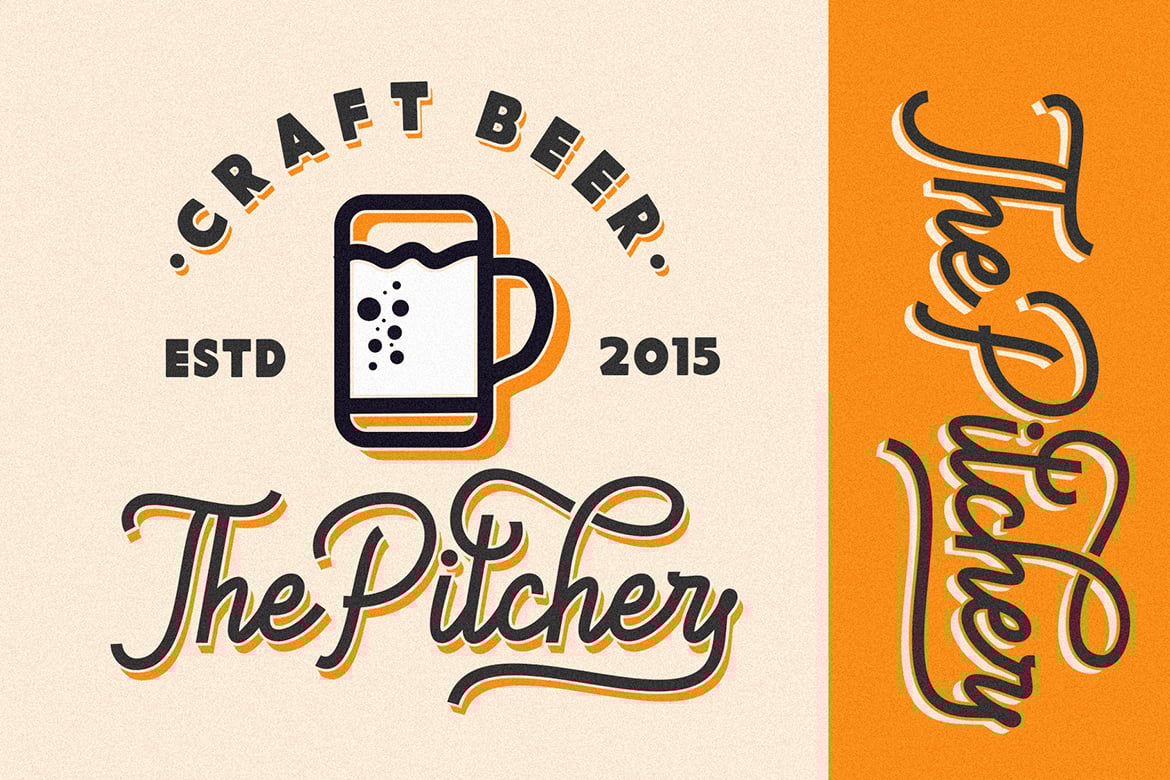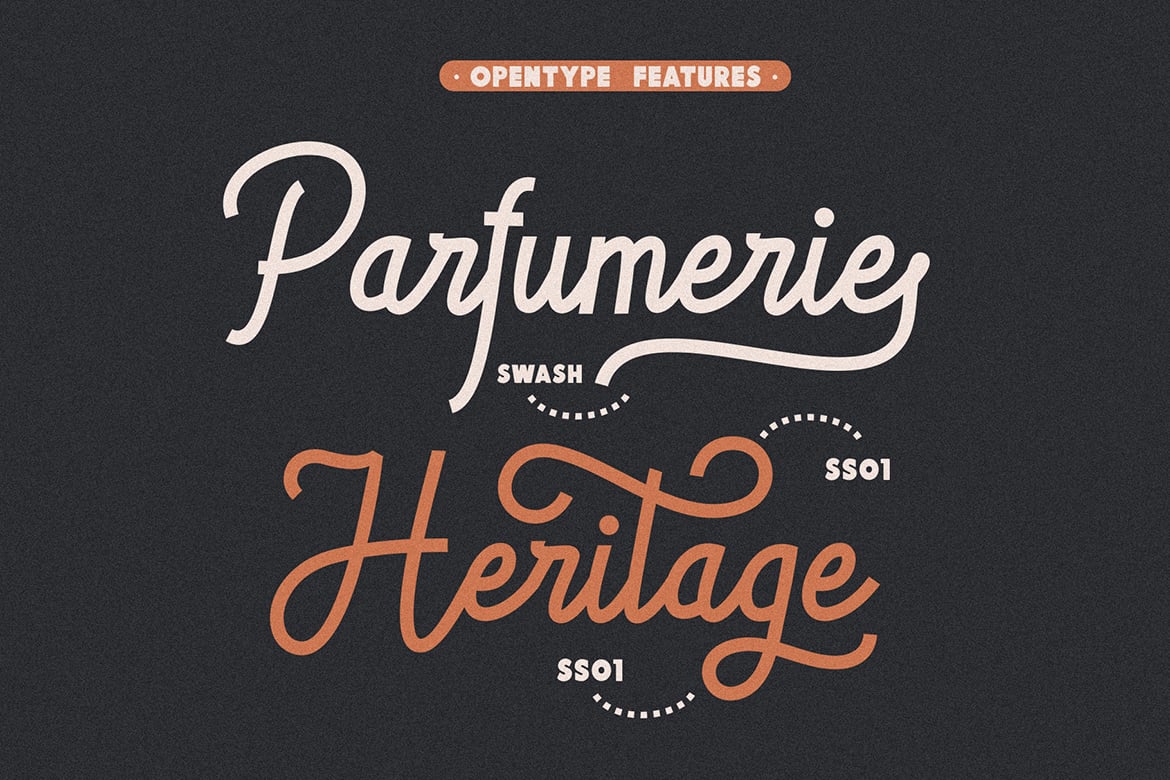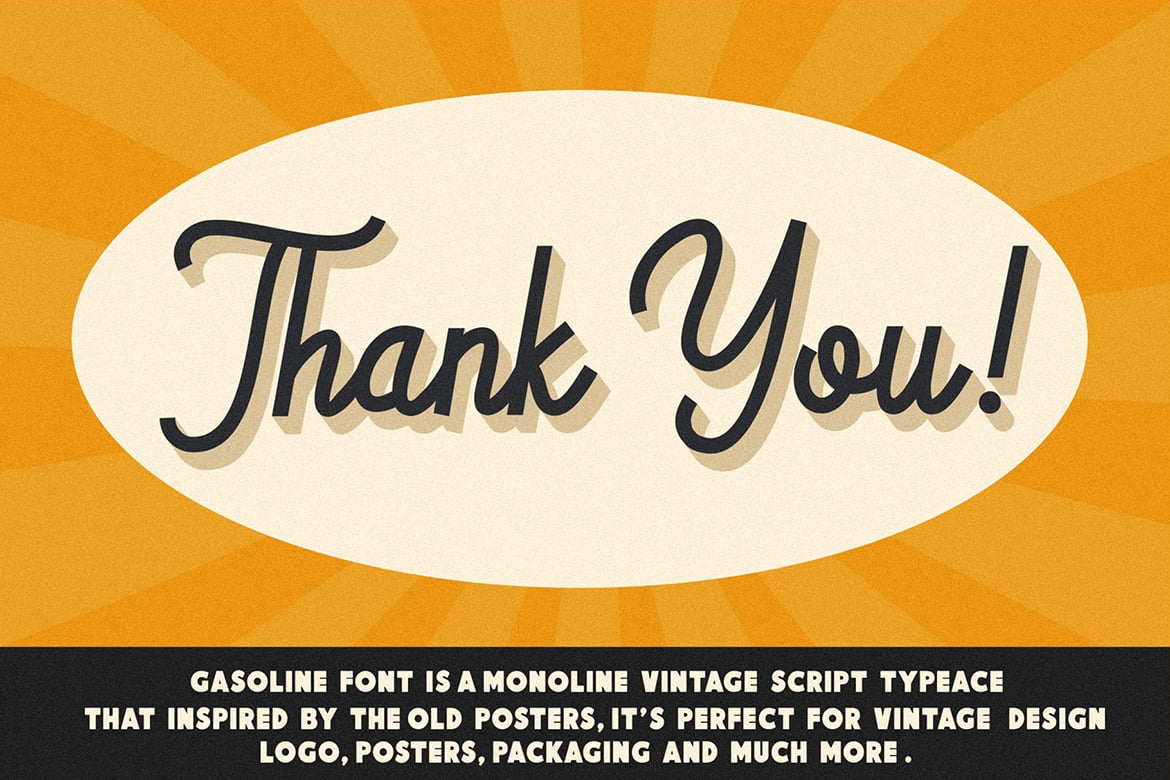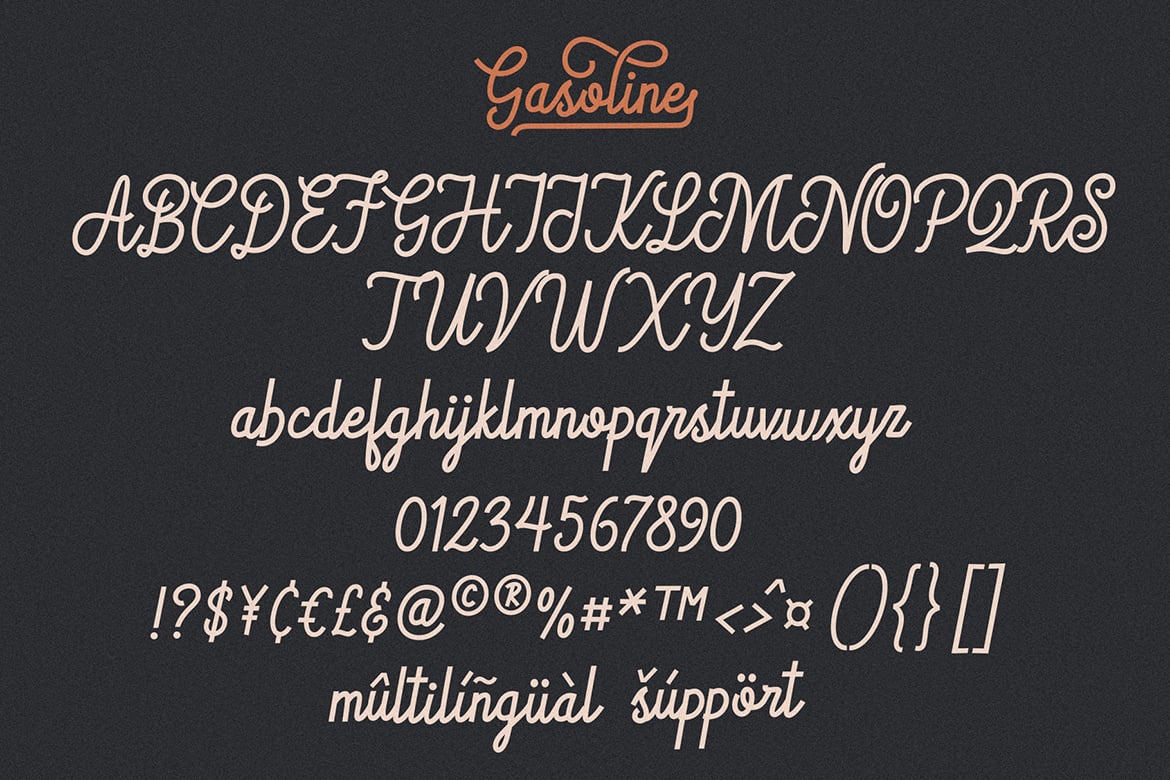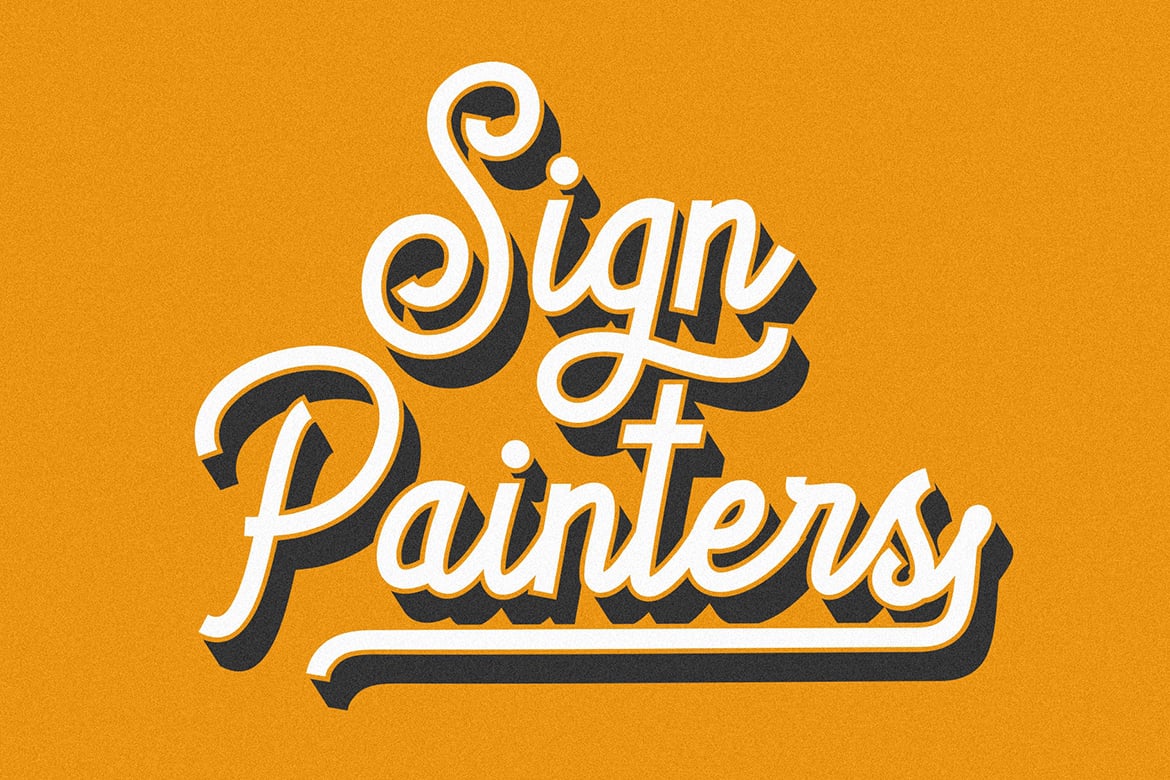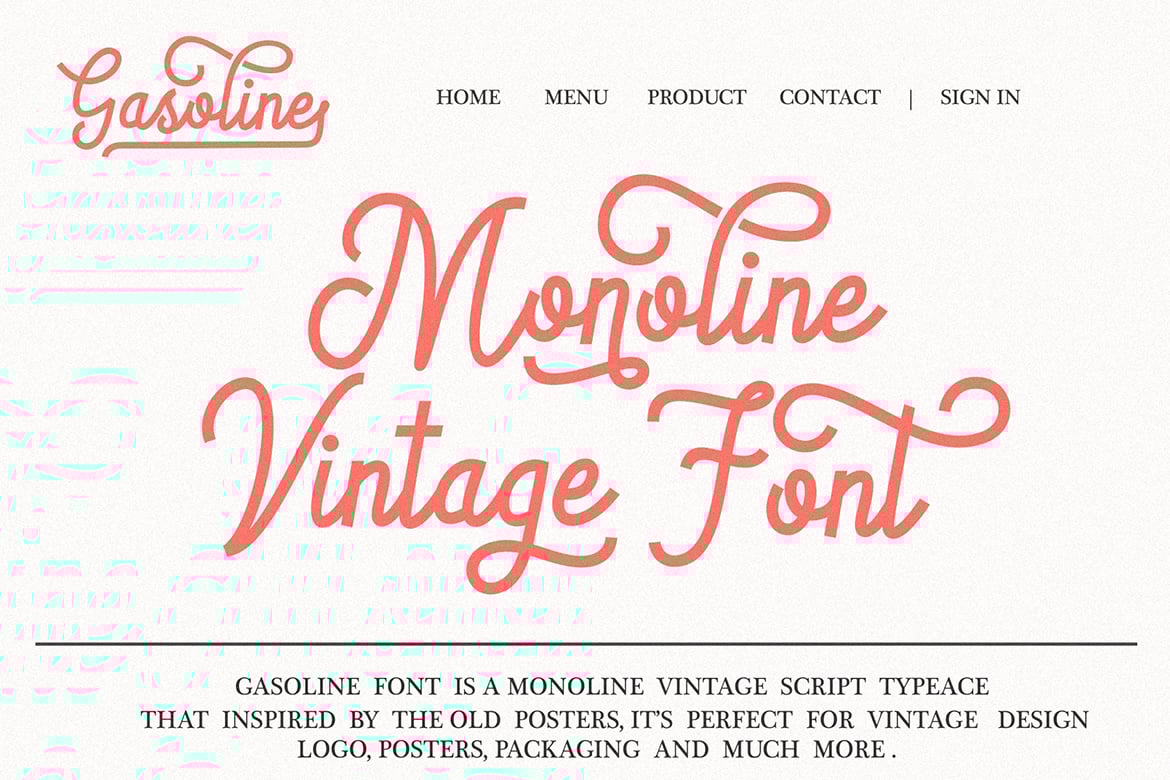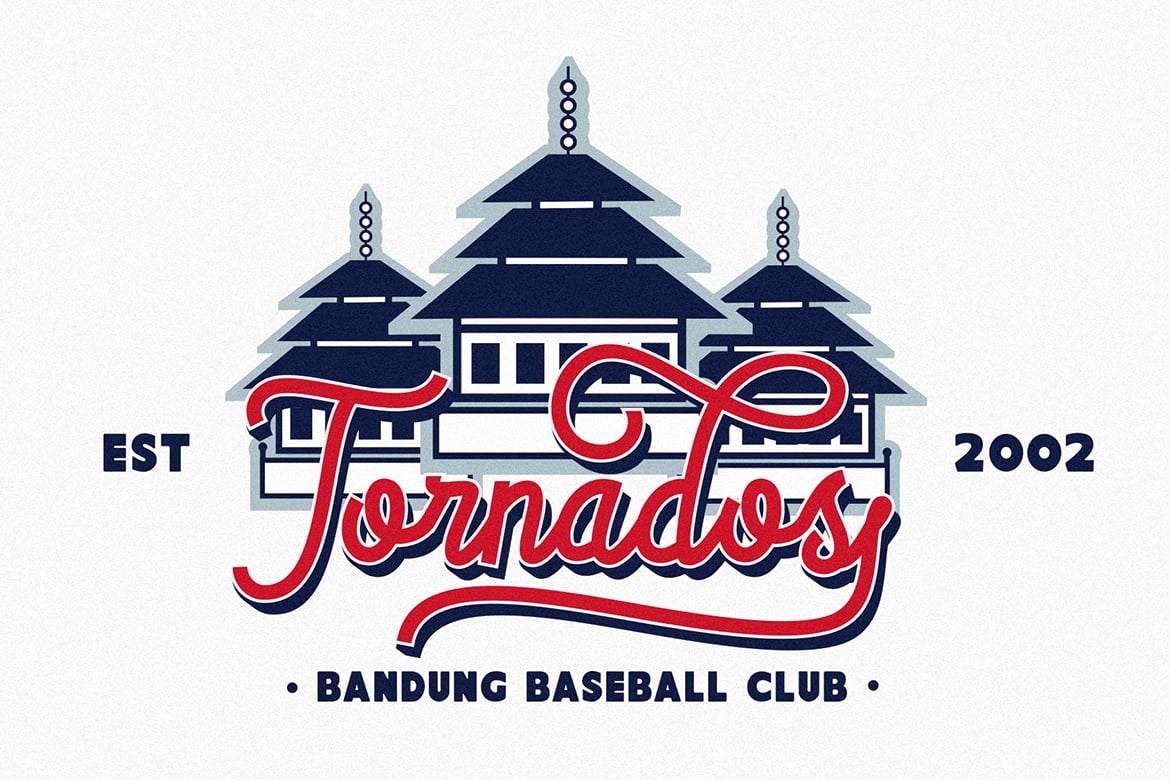
Gasoline – Monoline Vintage Script Font
Gasoline is a monoline Vintage script Font, It is perfect for product logo, branding projects, headlines, posters, packaging, clothing brand logos, Vintage design and much more.
Gasoline comes with uppercase, lowercase, numerals, punctuation and many variations on each character, including OpenType alternates to let you customize your designs.